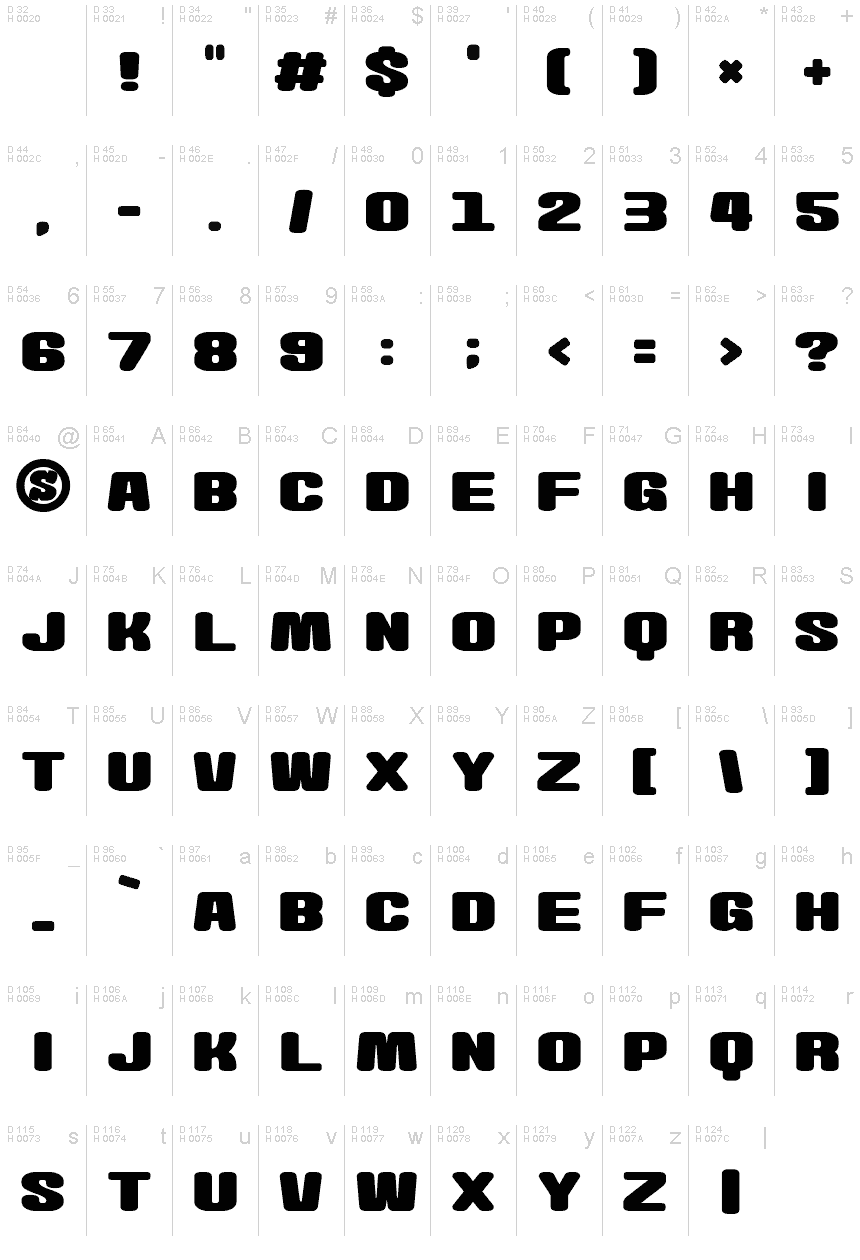
Wasabi-Gum
Wasabi-Gum, crafted by the imaginative Goma Shin, is a display font that commands attention with its extra-bold weight and expanded width. This typeface boasts a robust presence that beautifully balances impact with readability. Its exaggerated proportions and dense letterforms lend themselves to high-impact visuals, making it an ideal choice for headlines, posters, branding, and any project that requires a strong typographic statement.
The aesthetic appeal of Wasabi-Gum lies in its modern flair fused with a sense of playful boldness. The expansive characters are designed to stand out even in the most dynamic of designs, offering designers an expressive tool for conveying messages with confidence and style.
Whether used in digital landscapes or printed media, Wasabi-Gum's unique characteristics ensure it will leave a lasting impression. Its suitability across various creative endeavors is undeniable, providing endless possibilities for those seeking to infuse their work with visual power and contemporary sophistication.
The aesthetic appeal of Wasabi-Gum lies in its modern flair fused with a sense of playful boldness. The expansive characters are designed to stand out even in the most dynamic of designs, offering designers an expressive tool for conveying messages with confidence and style.
Whether used in digital landscapes or printed media, Wasabi-Gum's unique characteristics ensure it will leave a lasting impression. Its suitability across various creative endeavors is undeniable, providing endless possibilities for those seeking to infuse their work with visual power and contemporary sophistication.
Goma Shin